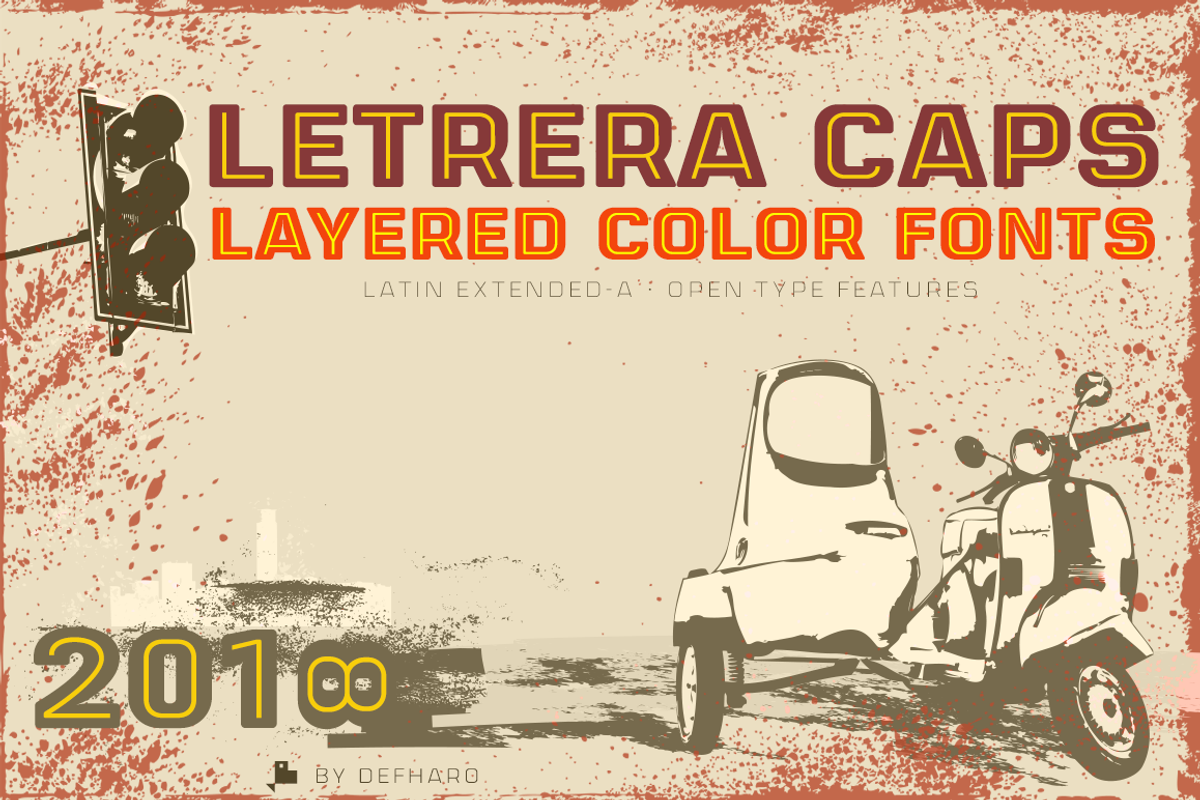
The Letrera Caps - Layered & Color Fonts Free Download is a versatile and dynamic font that combines bold, layered letterforms with vibrant color effects. Designed to make your designs pop, this font is perfect for creating attention-grabbing logos, posters, headlines, and branding materials. Whether you're working on a creative project, promotional campaign, or event design, Letrera Caps brings a fresh, modern look with its stunning color layers and bold structure.
Letrera Caps - Layered & Color Fonts Free Download is ideal for designers looking to add depth, color, and impact to their work. Perfect for bold, high-visibility designs, this font will bring a unique and striking aesthetic to your creative projects. Download it today and enhance your designs with the layered, colorful style of Letrera Caps!